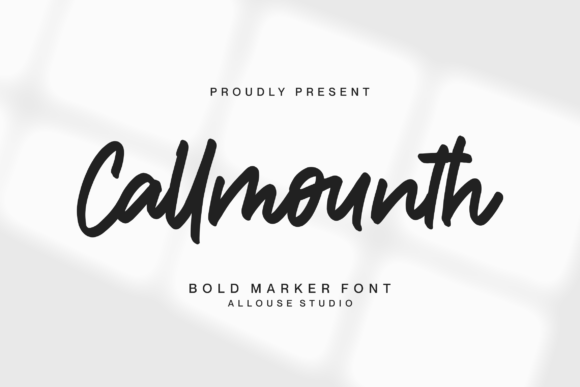
Step into the enchanting realm of Callmounth Font, a script font that exudes both charm and elegance, ready to grace your creative projects with an exquisite handwritten touch. Whether you're crafting wedding invitations, expressing gratitude with thank you cards, sharing inspirational quotes, extending warm greetings, designing logos and business cards, or embarking on any endeavor that calls for a personal touch, Callmounth Font is your trusted companion.
Immerse yourself in the beauty of Callmounth Font, where each letter dances across the page with a captivating rhythm, creating visual harmony that captivates and inspires. With its flowing curves and elegant lines, Callmounth Font adds a touch of sophistication to your designs, leaving a lasting impression on your audience.
Unleash your creativity and let Callmounth Font take center stage. Its versatility knows no bounds, allowing you to weave it into a variety of projects, from heartfelt letters to captivating posters. Let your imagination soar as you explore the endless possibilities, knowing that Callmounth Font will elevate your designs to new heights.
With Callmounth Font as your artistic partner, you'll embark on a journey of self-expression, transforming ordinary words into breathtaking works of art. Its graceful strokes and delicate details will captivate your audience, leaving them spellbound by the sheer beauty of your creations.